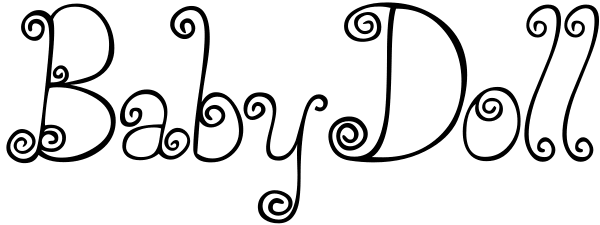
BabyDoll
Delicately swirled BabyDoll includes eight assorted dingbats, and like all Burghal Design fonts, includes upper and lower case letters, as well as numbers, symbols, punctuation, and accented foreign characters. BabyDoll is so cute and sweet, you...